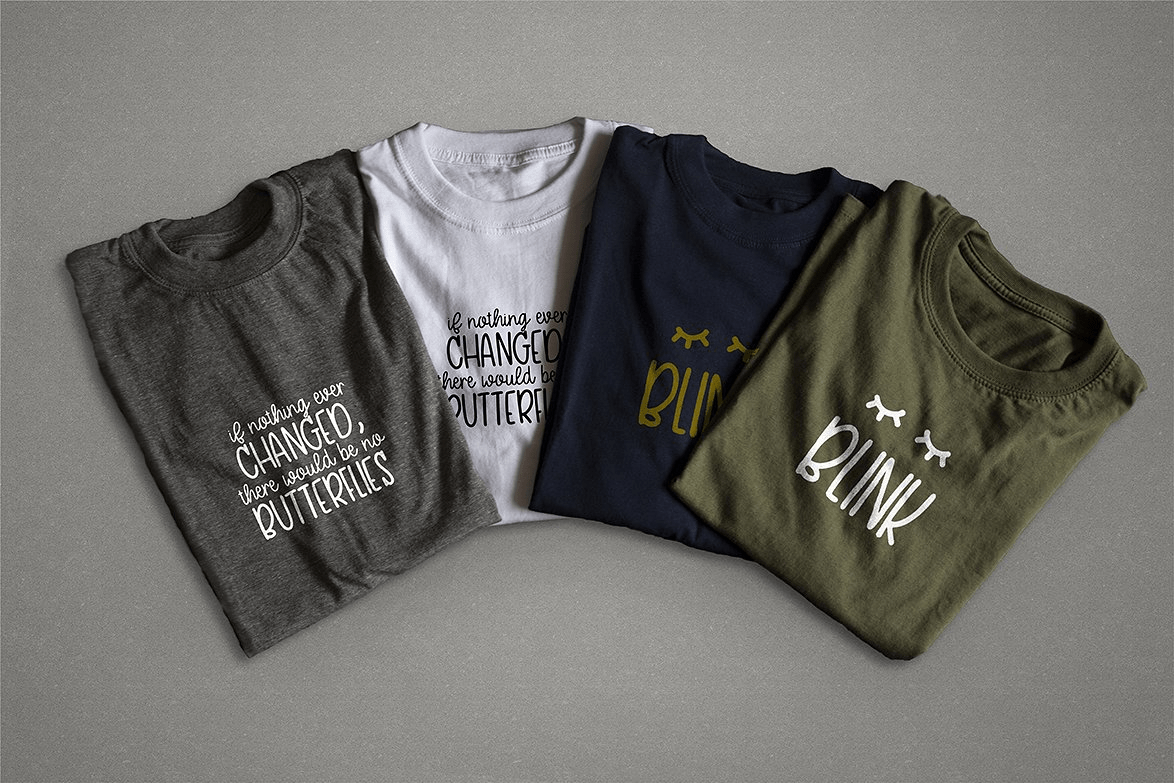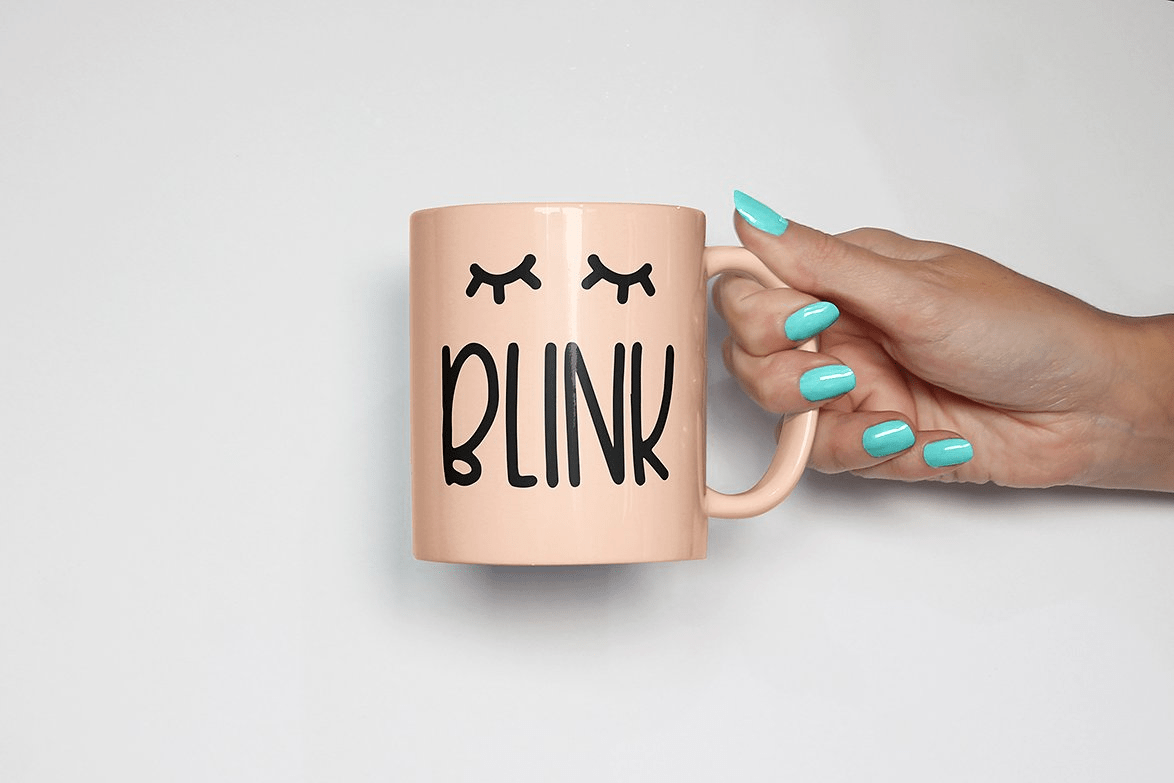
Say hello to Blink! Blink script is a simple script, great for signs, crafting, tee design & MORE. Includes a neat skinny set of uppercase letters that can be used as a standalone font as well!